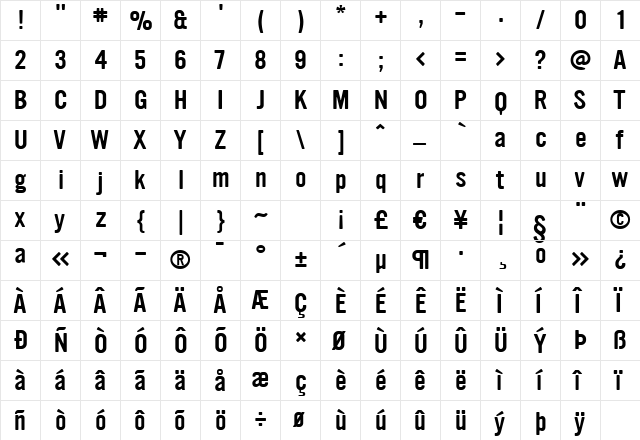
Ultramagnetic Regular
| Foundry | YouWorkForThem |
| Designer | Michael Cina |
Design Context for Ultramagnetic Typeface
Ultramagnetic takes a measured approach to typography — its balanced proportions and neutral character make it a reliable workhorse for both digital and print work.